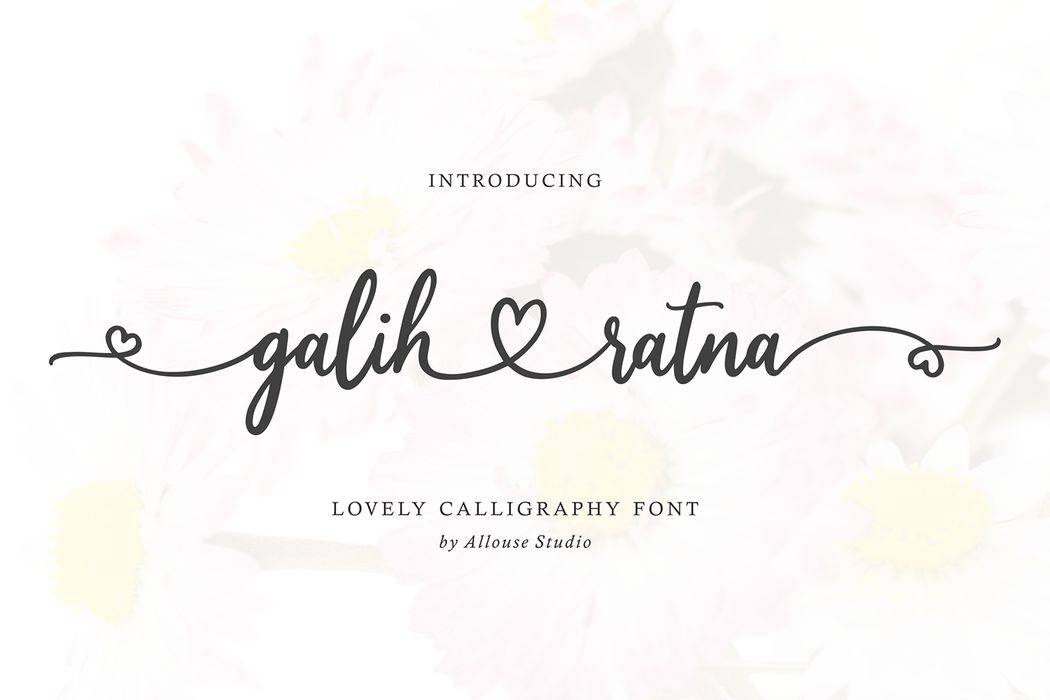
Galih Ratna is a stylish script font that combines elegant cursive lettering with a modern, handwritten feel. Its smooth, flowing strokes and tall, slightly condensed letterforms create a graceful and sophisticated look, making it ideal for branding, invitations, and feminine or luxury design projects. This font works beautifully in display settings where a personal, artistic touch is desired.
Galih Ratna Font
About Galih Ratna Font